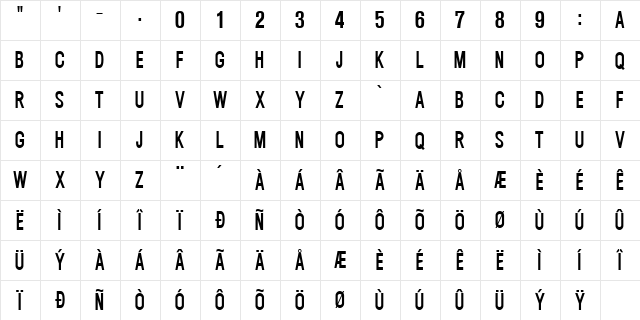
Azmie WC2010 Slovenia Regular
| Foundry | Toto |
| Designer | Toto |
| Year | 2010 |
Design Context for Azmie WC2010 Slovenia Typeface
Azmie WC2010 Slovenia is a composed and adaptable typeface that performs quietly and consistently across a wide range of design contexts.